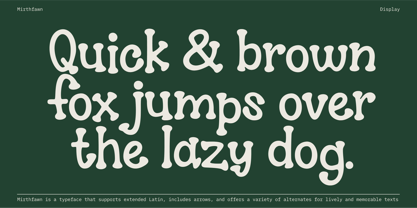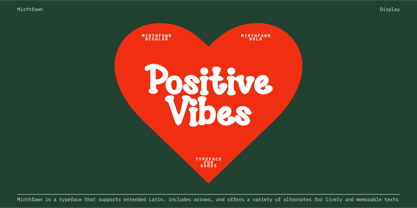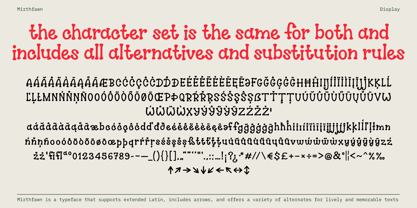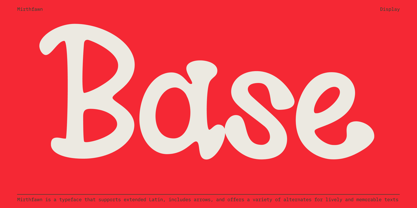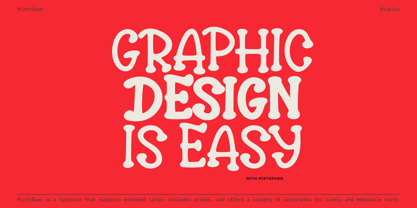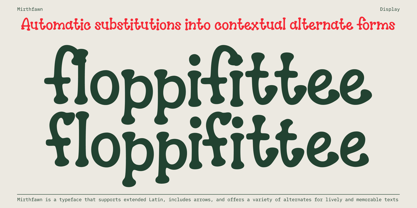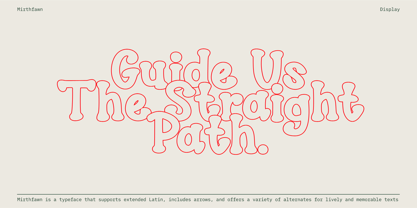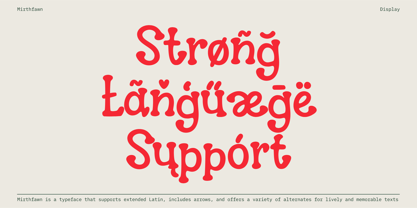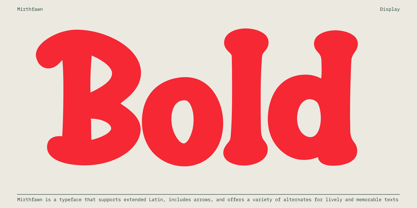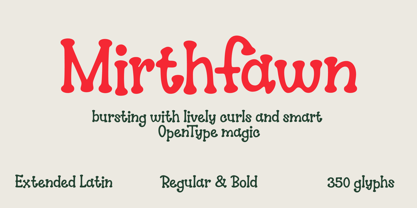
Mirthfawn
Mirthfawn is a bubbly display serif that turns any headline into a smile. Inspired by bubble lettering and folk‑tale calligraphy, it blends plump serifs, gentle curls and lively swashes to radiate pure optimism. Use it wherever you need instant feel‑good energy—children’s books, snack packaging, party invitations, festival posters, greeting cards, social‑media graphics or any‑themed branding.
Why it stands out
• Personality in every curve – some double letters like >oo<, >pp< and >tt< auto‑switch to contextual alternates, so text looks hand‑lettered instead of copy‑pasted.
• Smart OpenType engine – Ligatures and Contextual alternates keep layouts tidy.
• Two perfectly matched styles – Regular brings airy elegance; Bold adds chunky impact.
• Extended Latin coverage – 300+ glyphs, so global projects stay on‑brand.
• Bonus arrows & icons – Handy arrows and Heart are built in, ready for infographics or way‑finding accents.
Design uses Why
• Storybook titles and chapter openers
• Craft‑beer labels, bakery boxes, chocolate bars
• Baby shower or birthday stationery
• Music‑festival and farmers‑market posters
• Instagram quote cards and YouTube thumbnails
• Logos for toy shops, cafés, florists and eco‑brands
Perfect pairings
For body copy, team Mirthfawn with a neutral humanist sans such as Lato, Nunito or Inter. Need a subtler accent? Try a clean text serif like Merriweather or Georgia; their calm rhythm highlights Mirthfawn’s playful character without competing for attention.
Behind the design
Designer set out to capture the carefree spirit of childhood doodles while maintaining professional spacing and reliable metrics. Each glyph was first sketched with a felt‑tip pen, then refined digitally to keep the organic bounce yet avoid uneven color on the page. The result is a typeface that feels handmade, scales smoothly from small screens to billboards, and—thanks to its OpenType tricks—stays visually fresh even in longer headlines.
Let your words dance with Mirthfawn and watch ordinary text transform into cheerful storytelling.